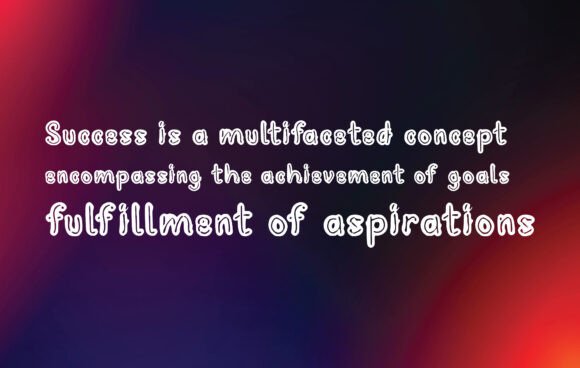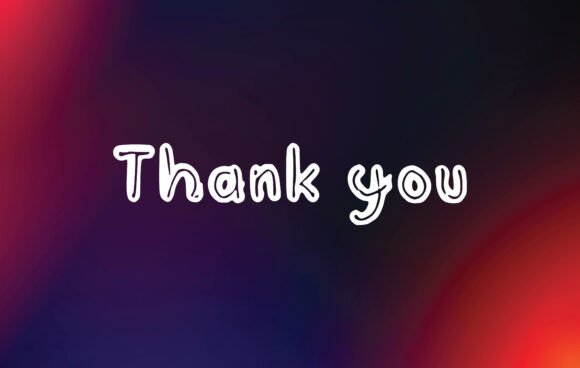
Introduction to Fossa Font
Fossa is a lovely and beautiful handwritten font.
Key Features of Fossa Font
Why Choose Fossa Font?
Fossa Font offers exceptional quality and versatility, making it a valuable addition to your design toolkit. Whether you’re creating for personal projects or commercial use, Fossa Font delivers professional results.